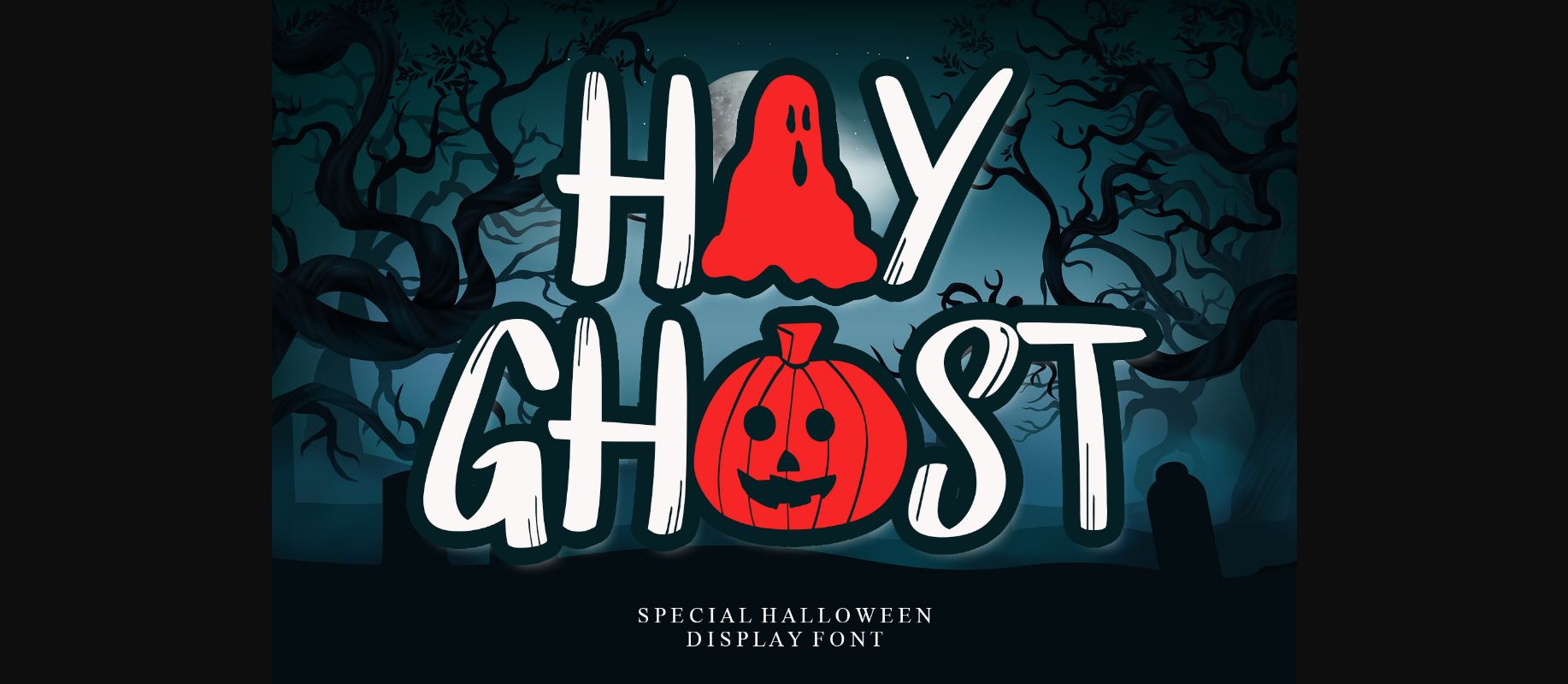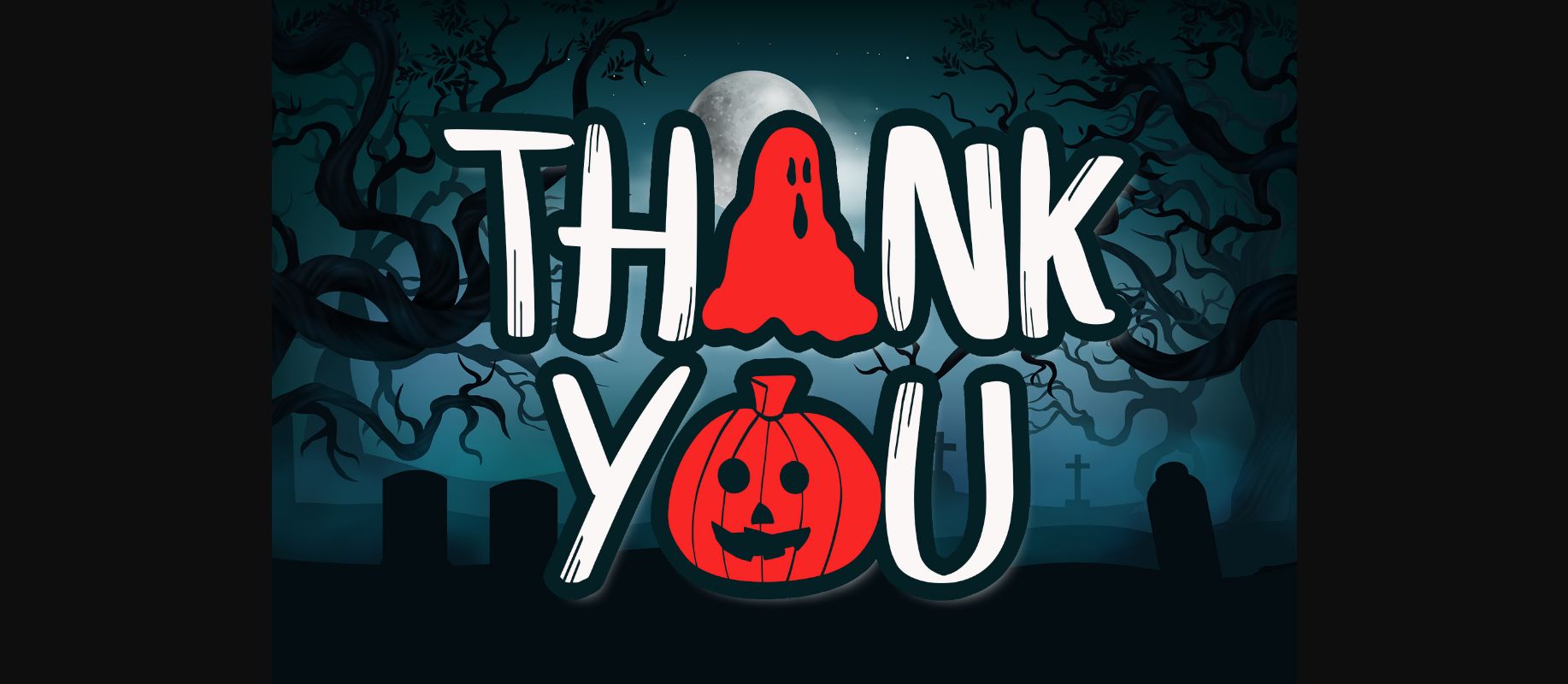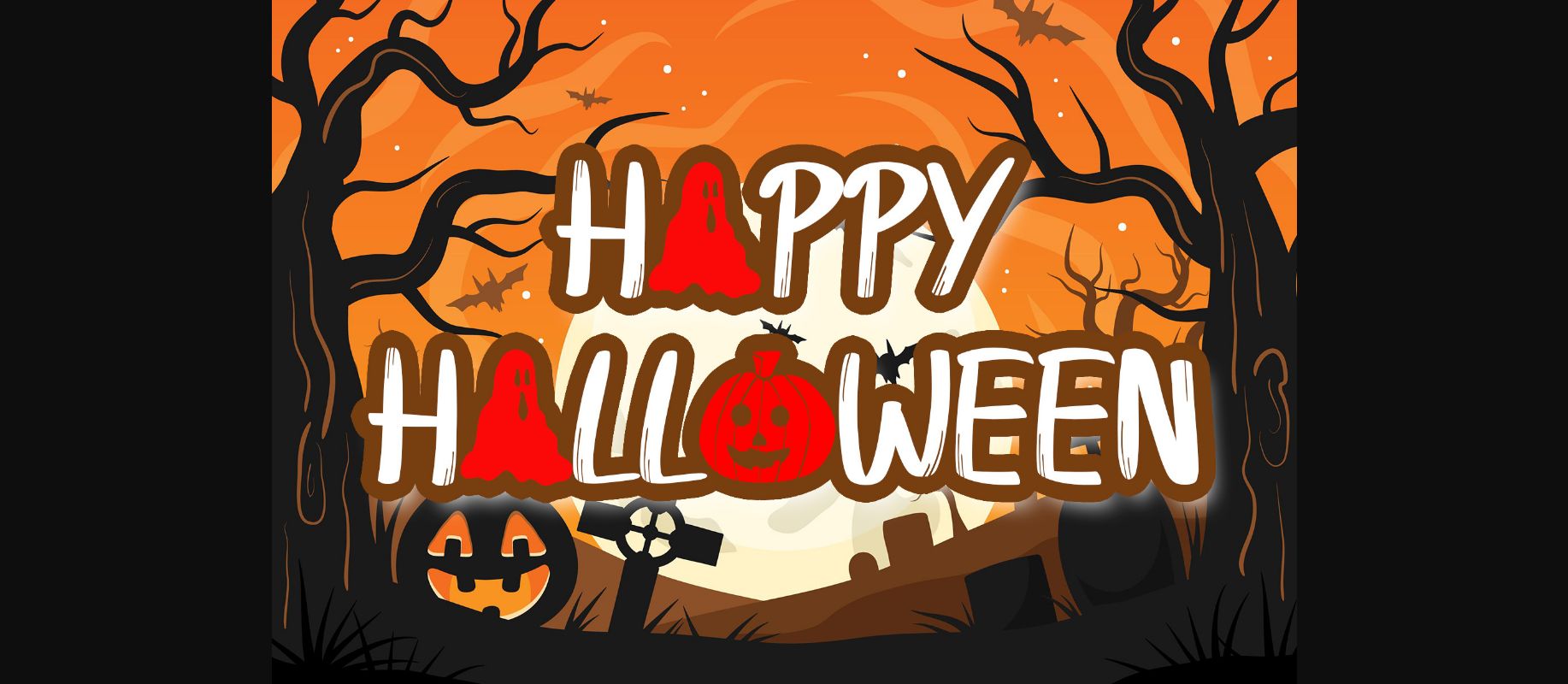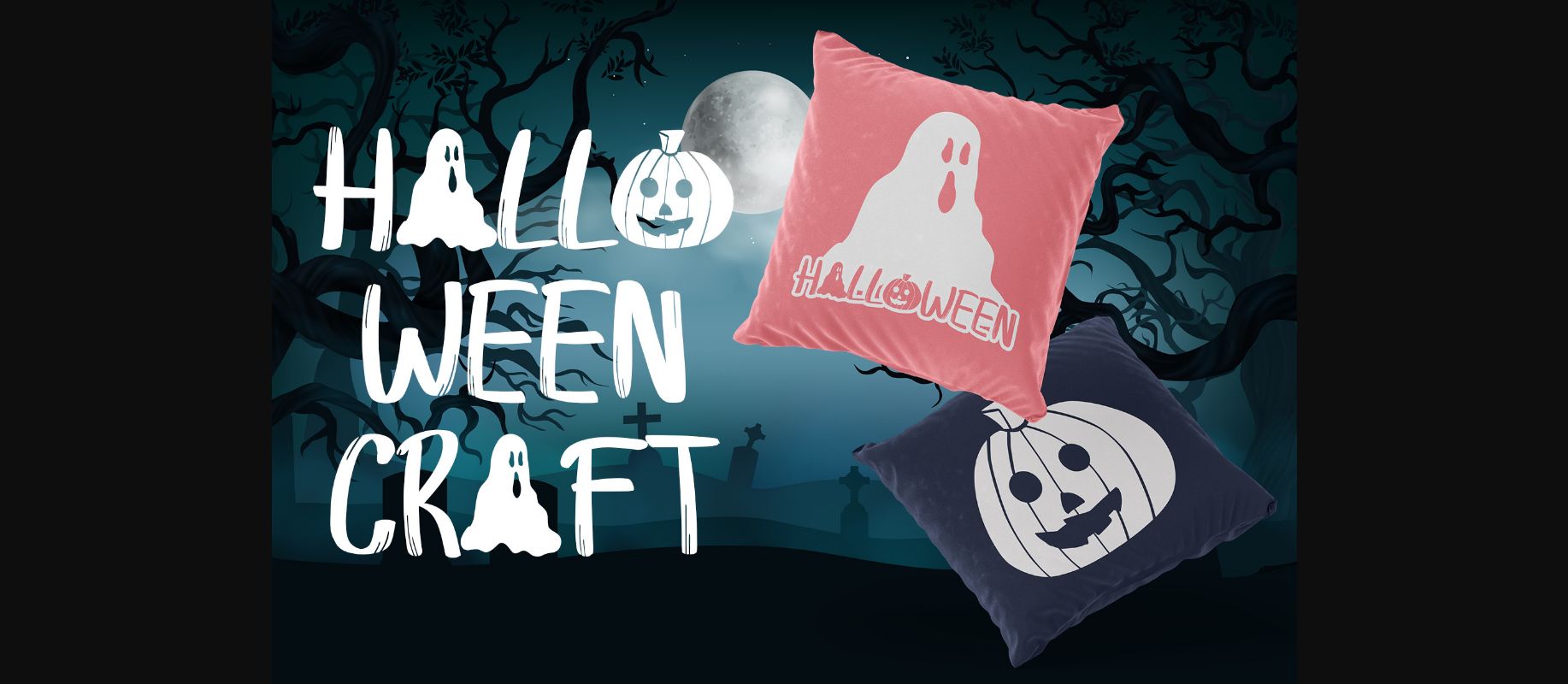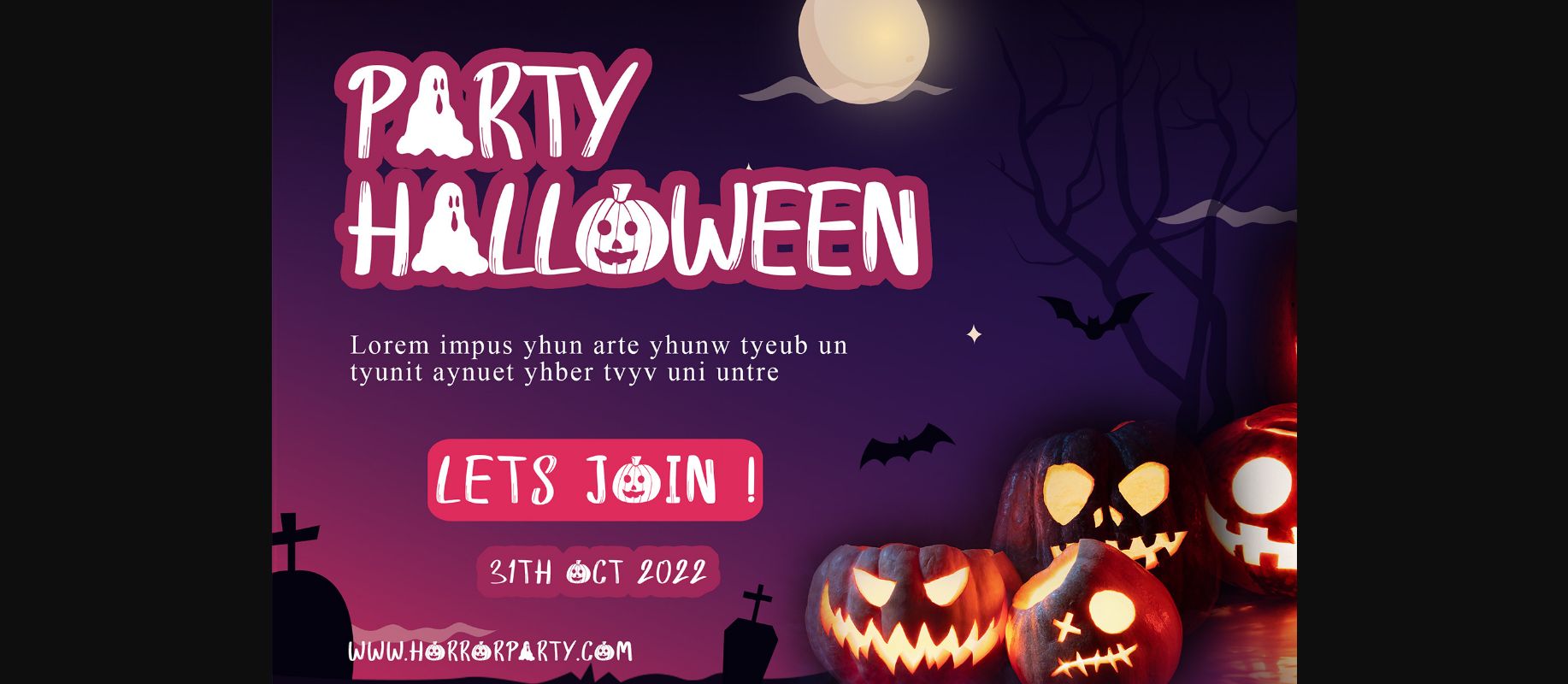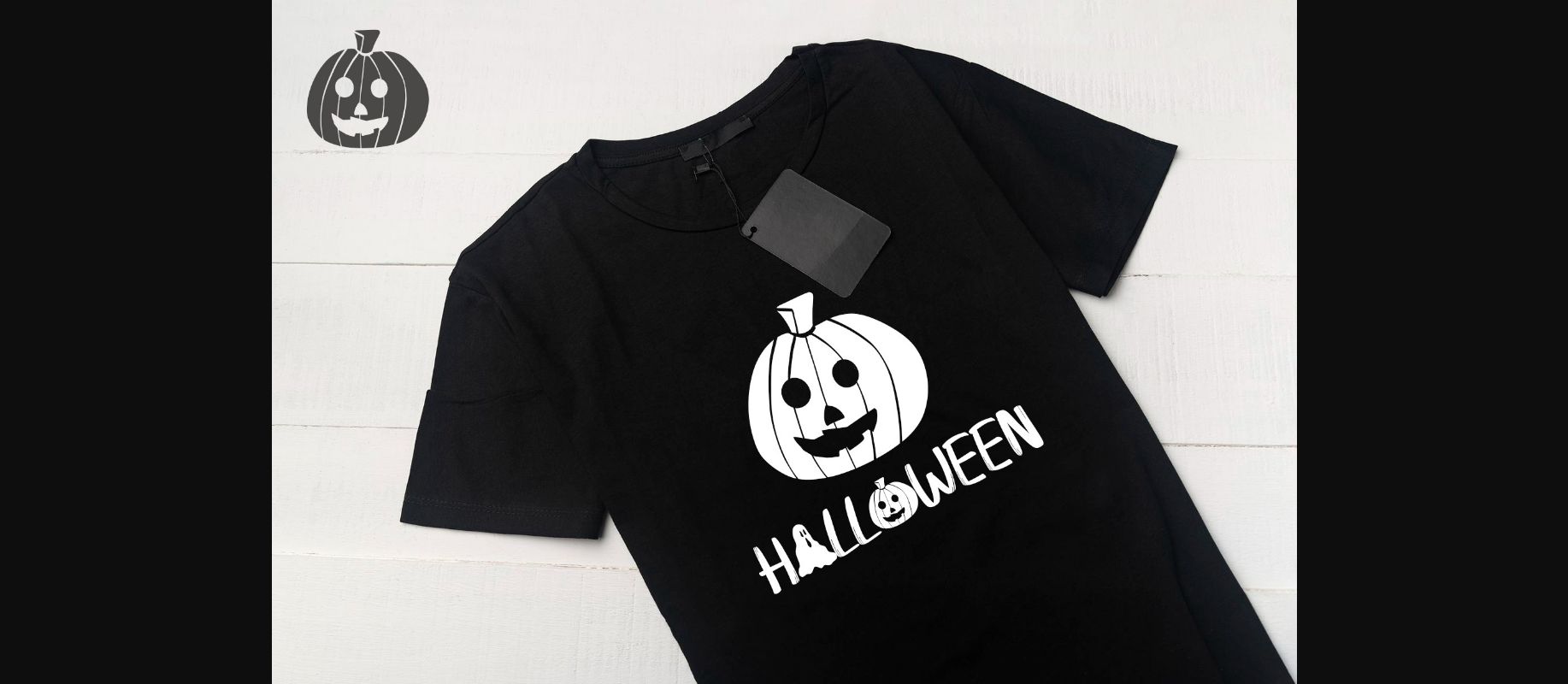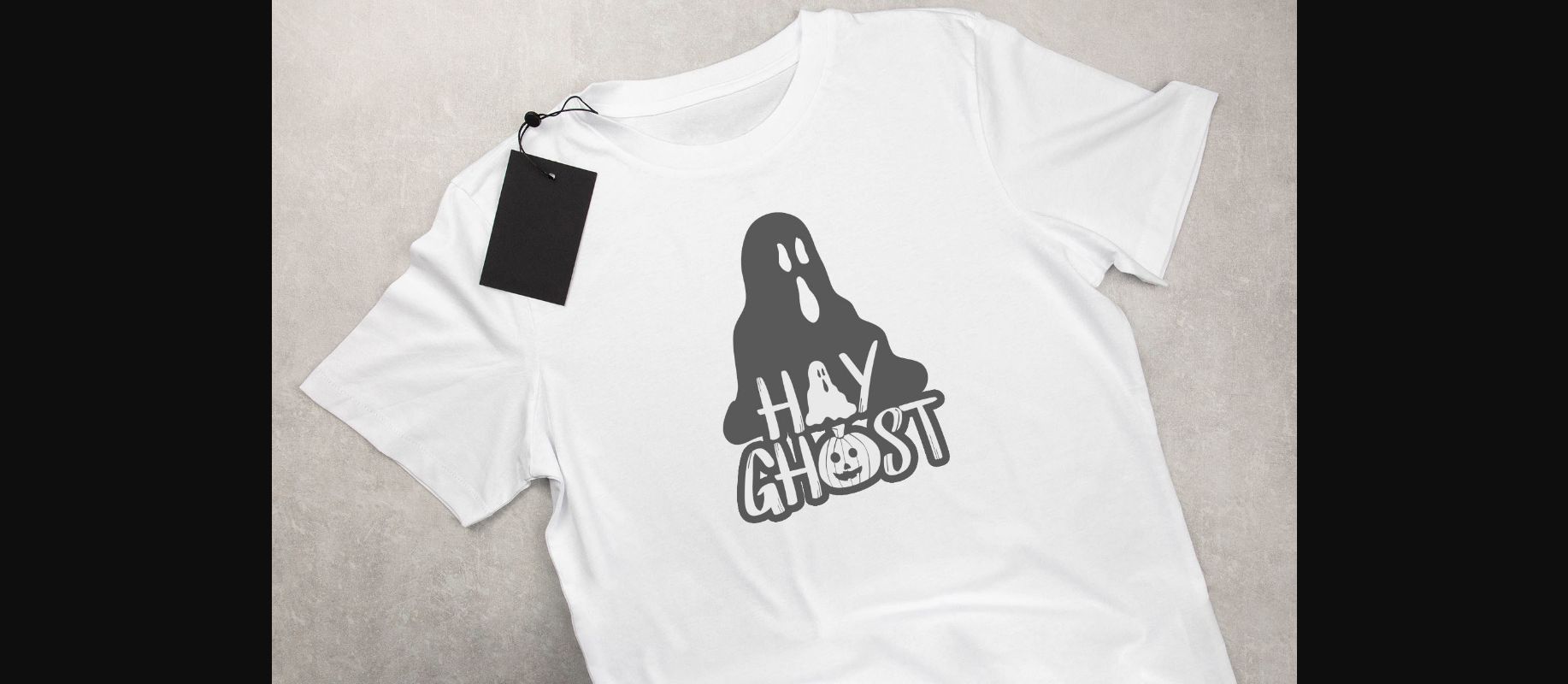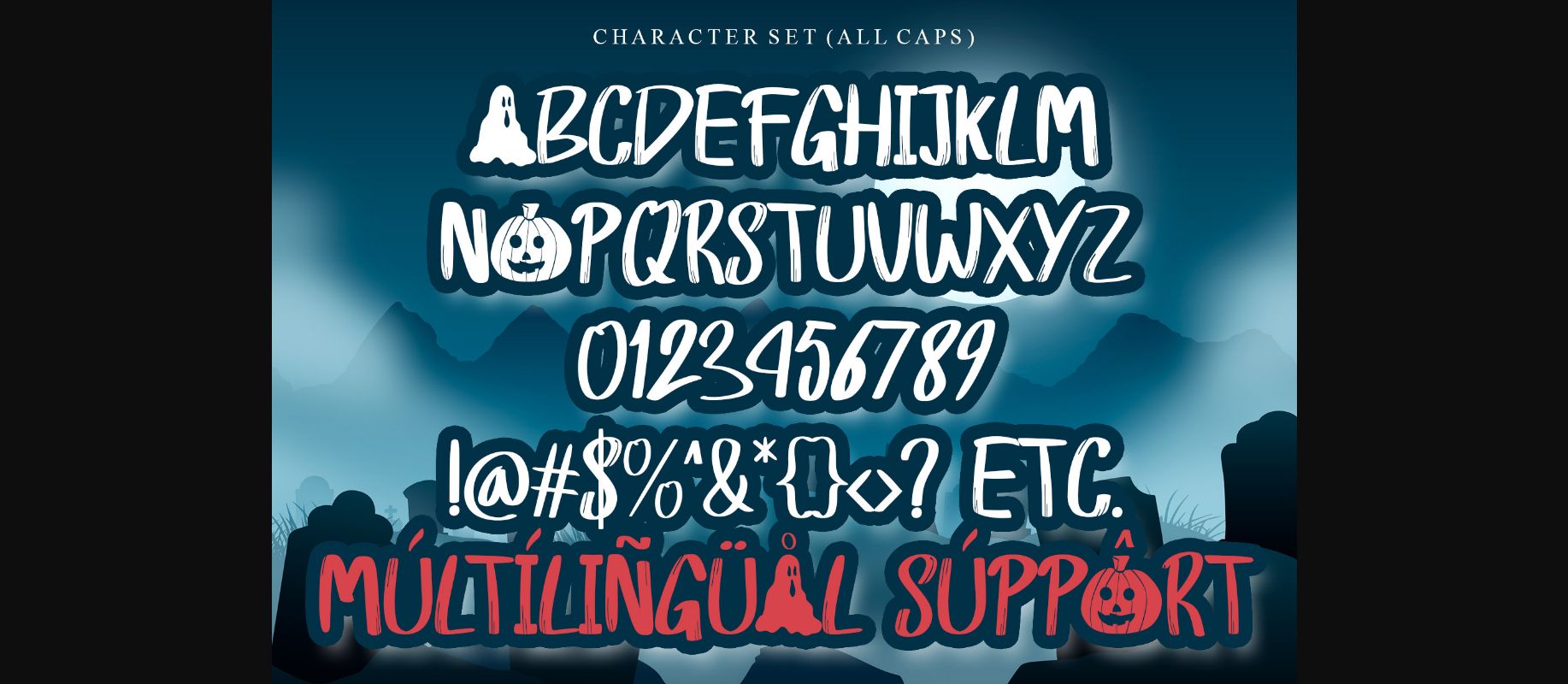
Hay Ghost Font
About Hay Ghost Font
Hay Ghost is a thick-lettered and spooky display font. It is perfectly suitable for any Halloween-related project or crafty idea!